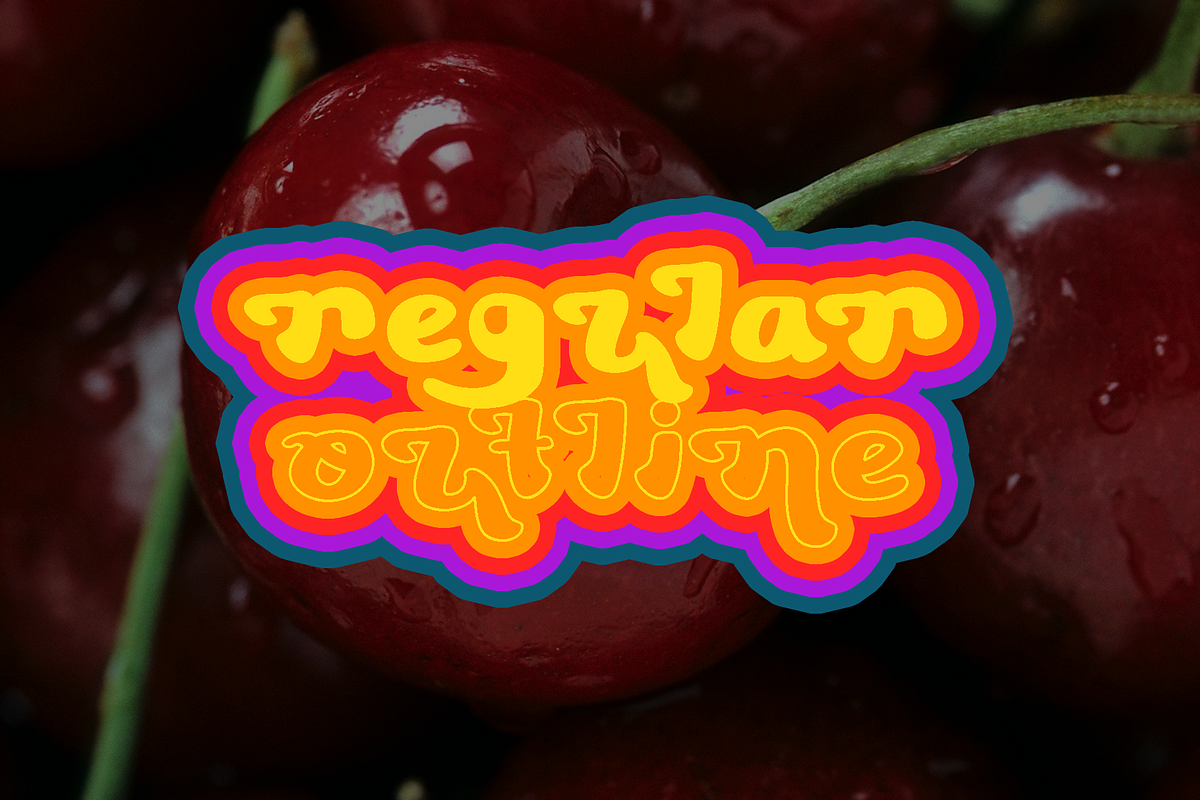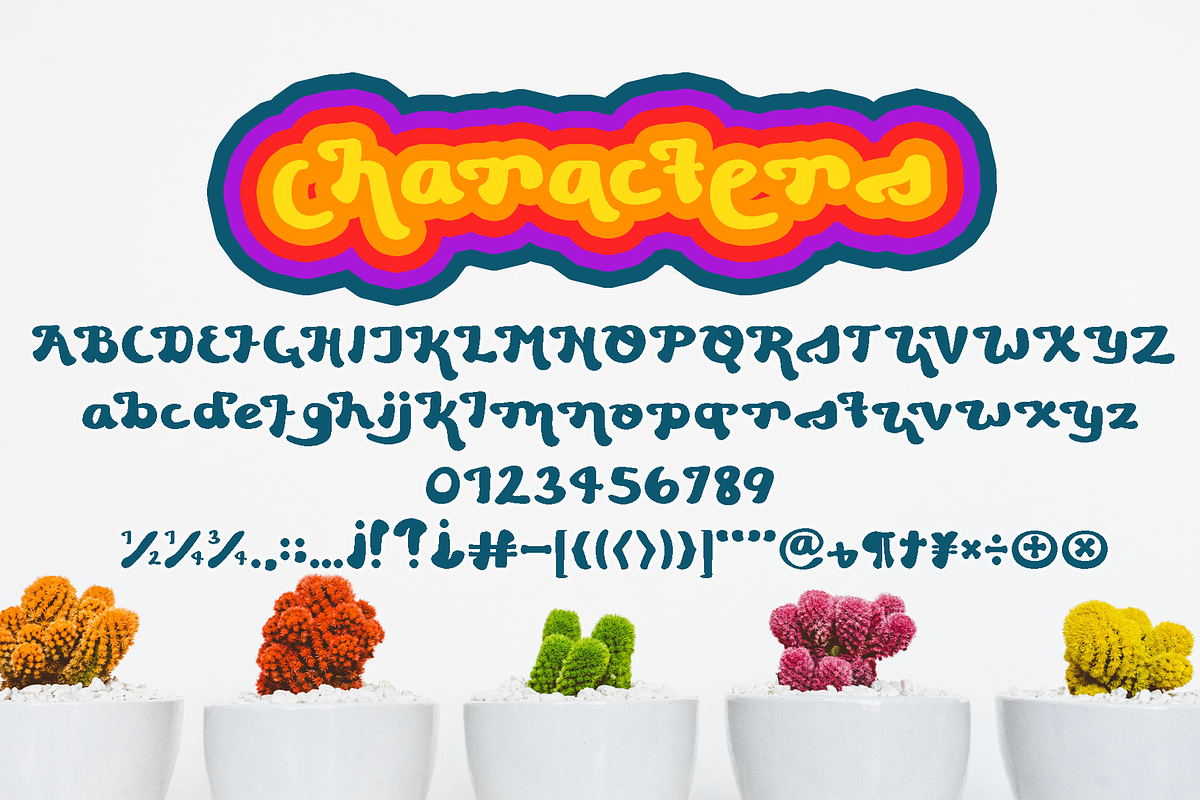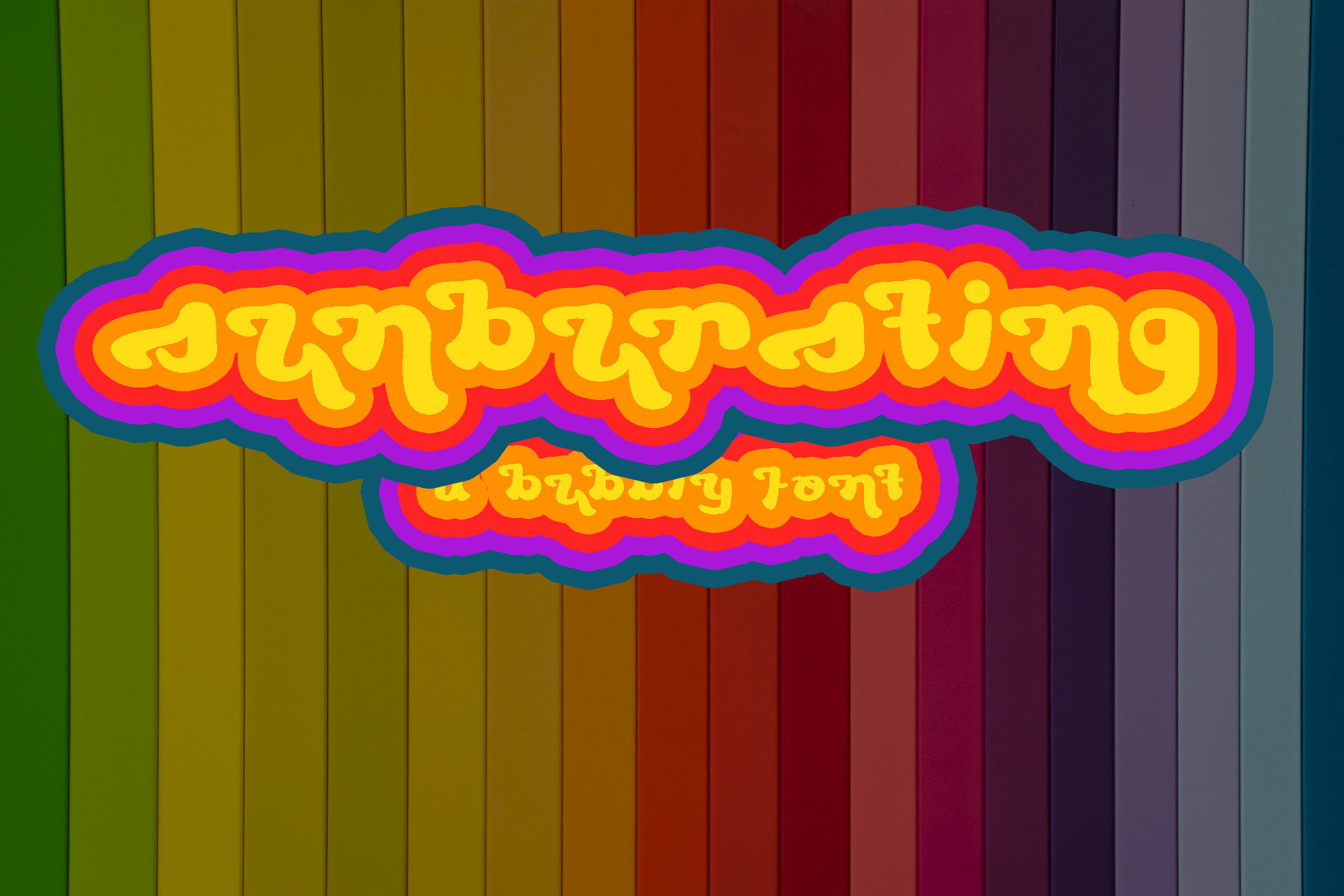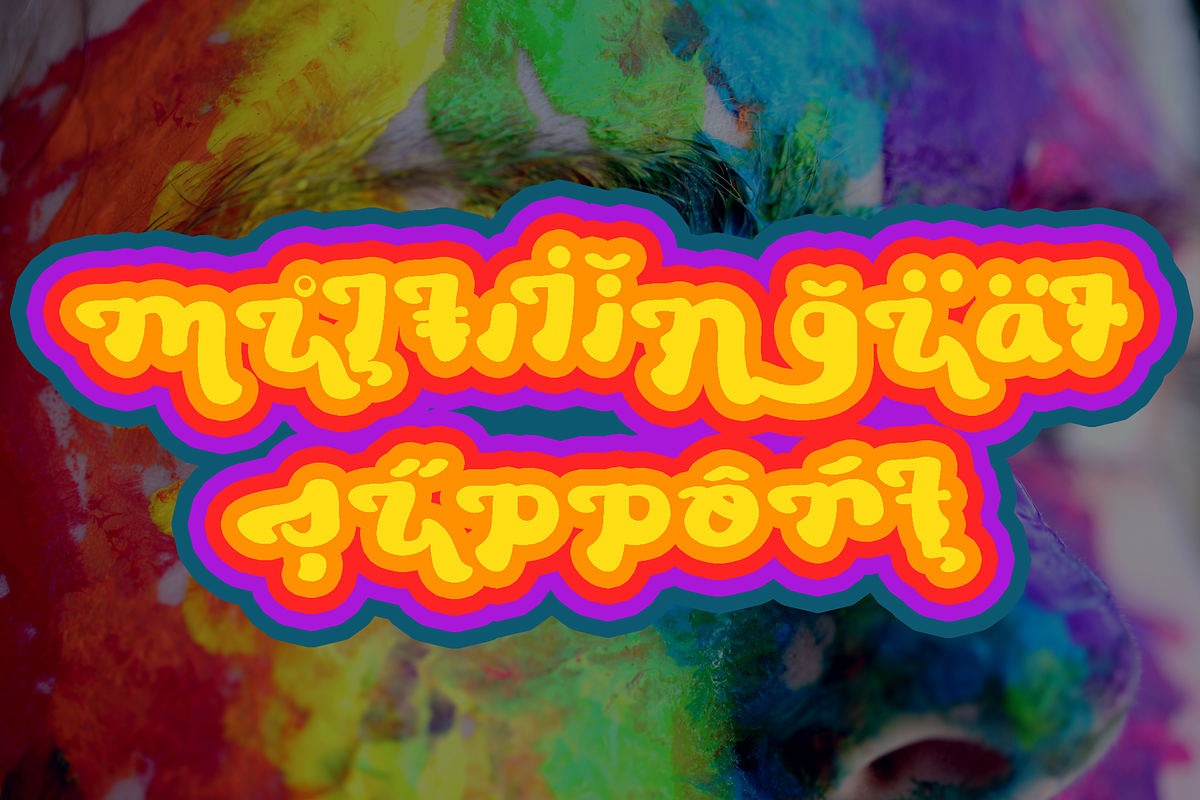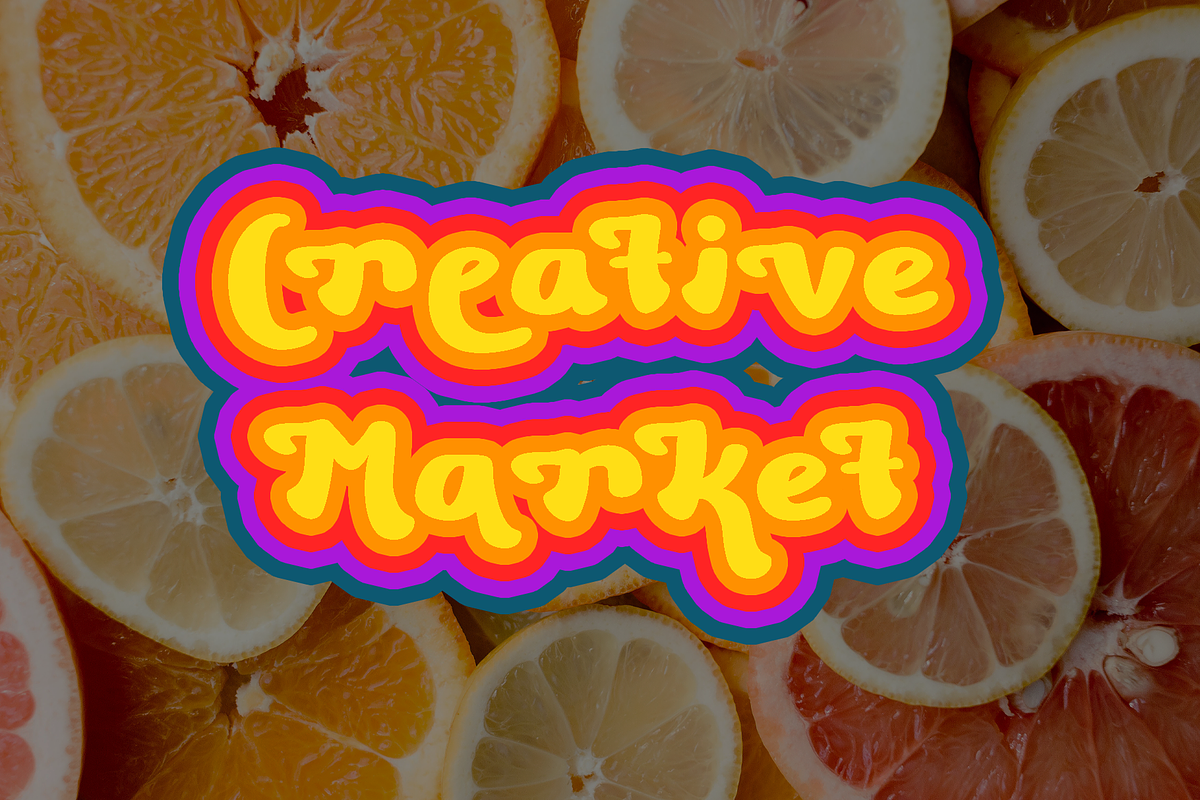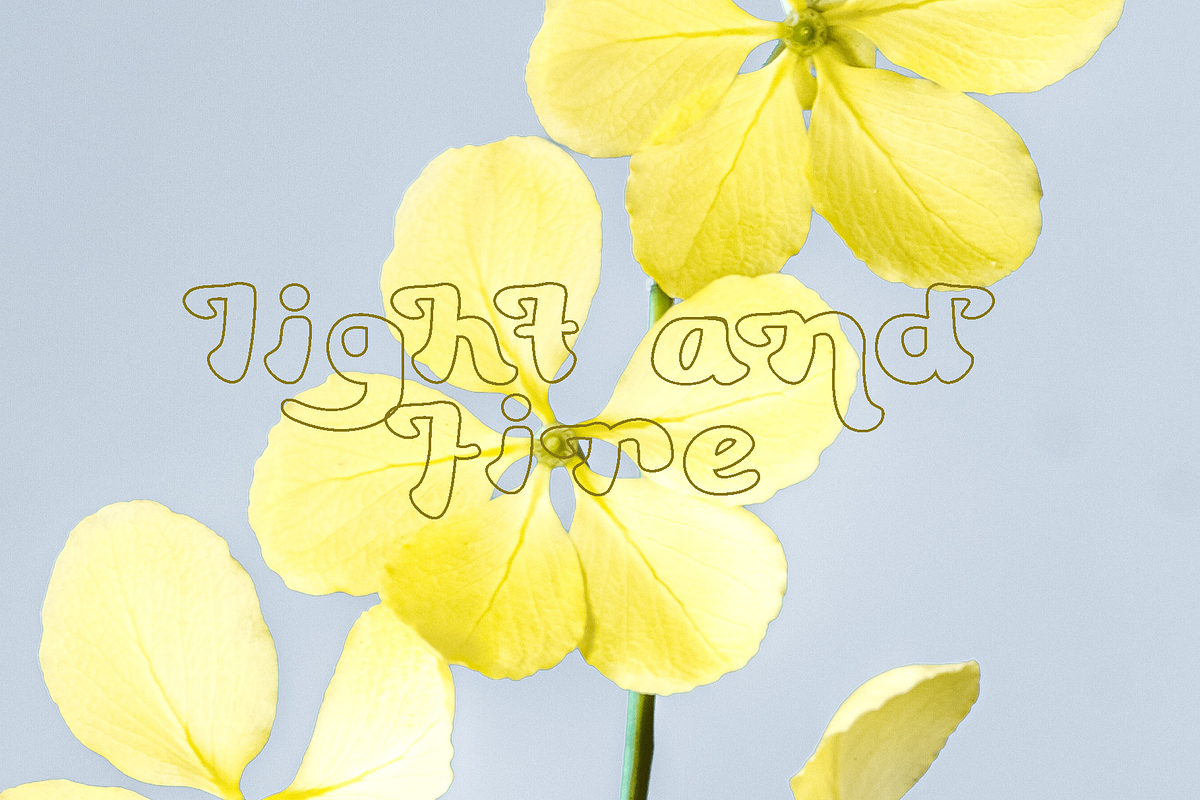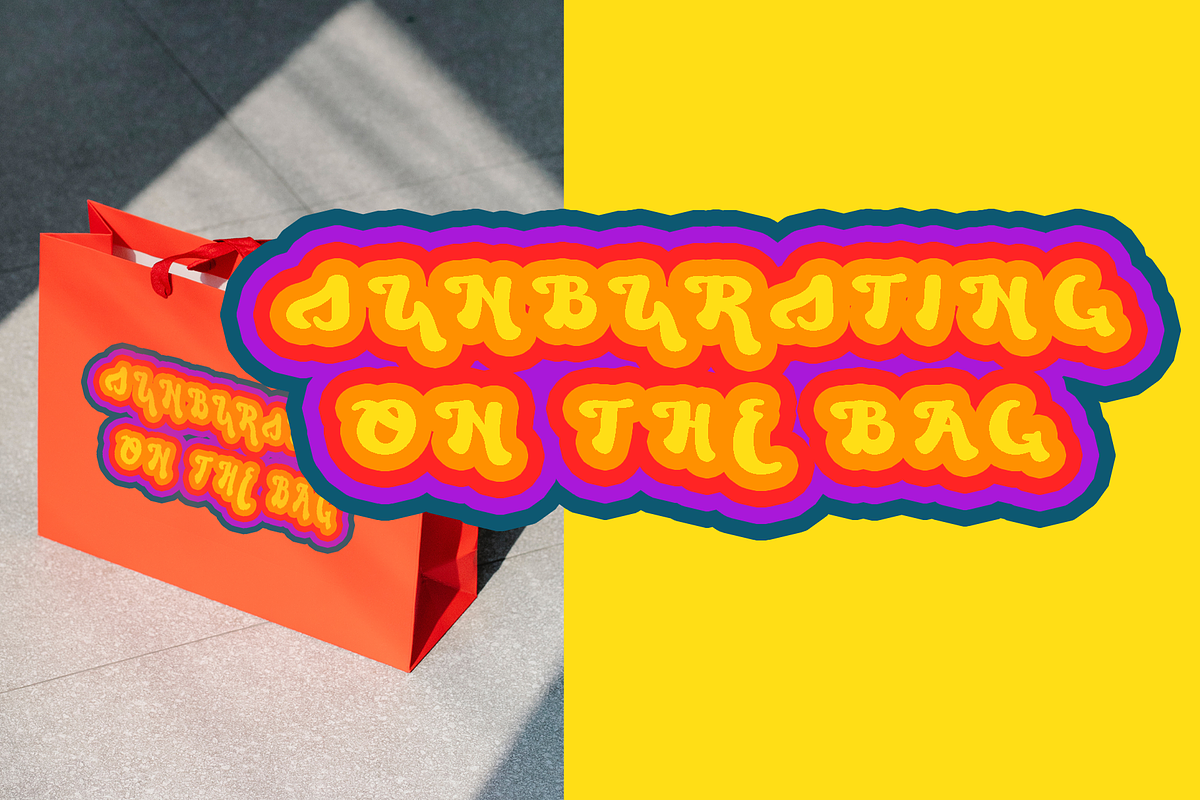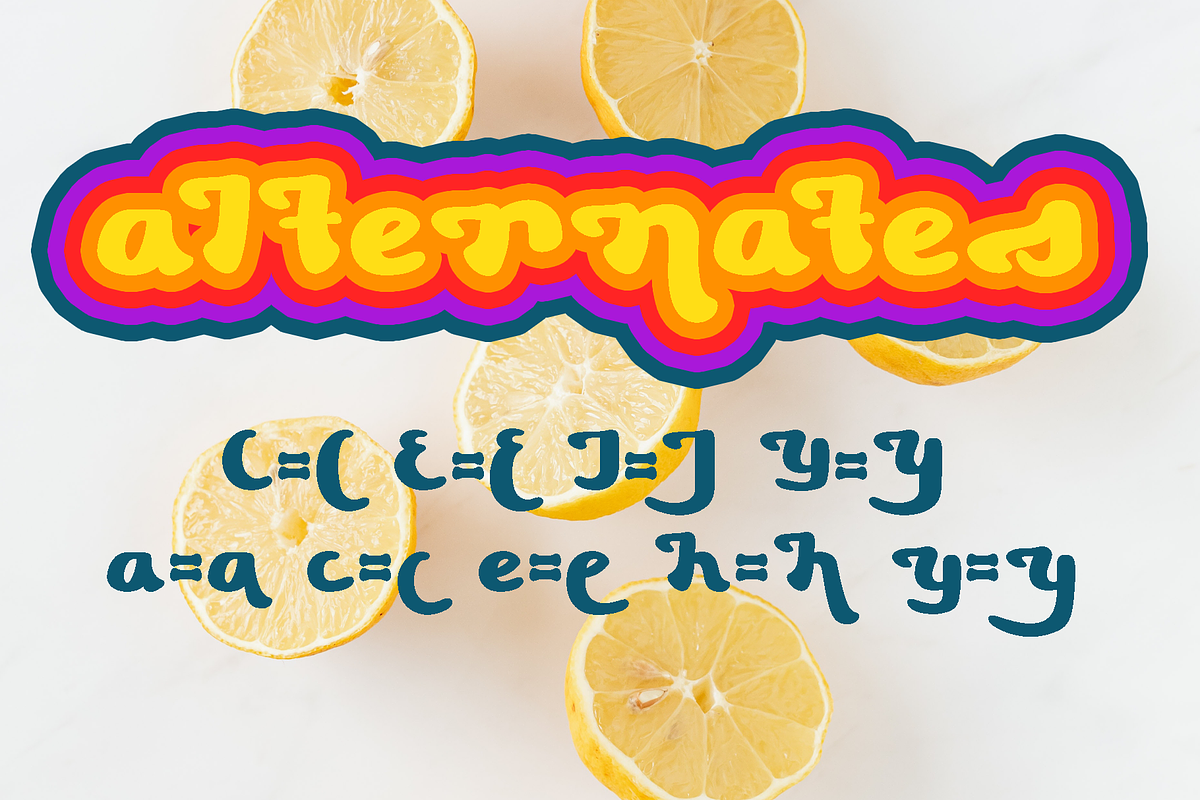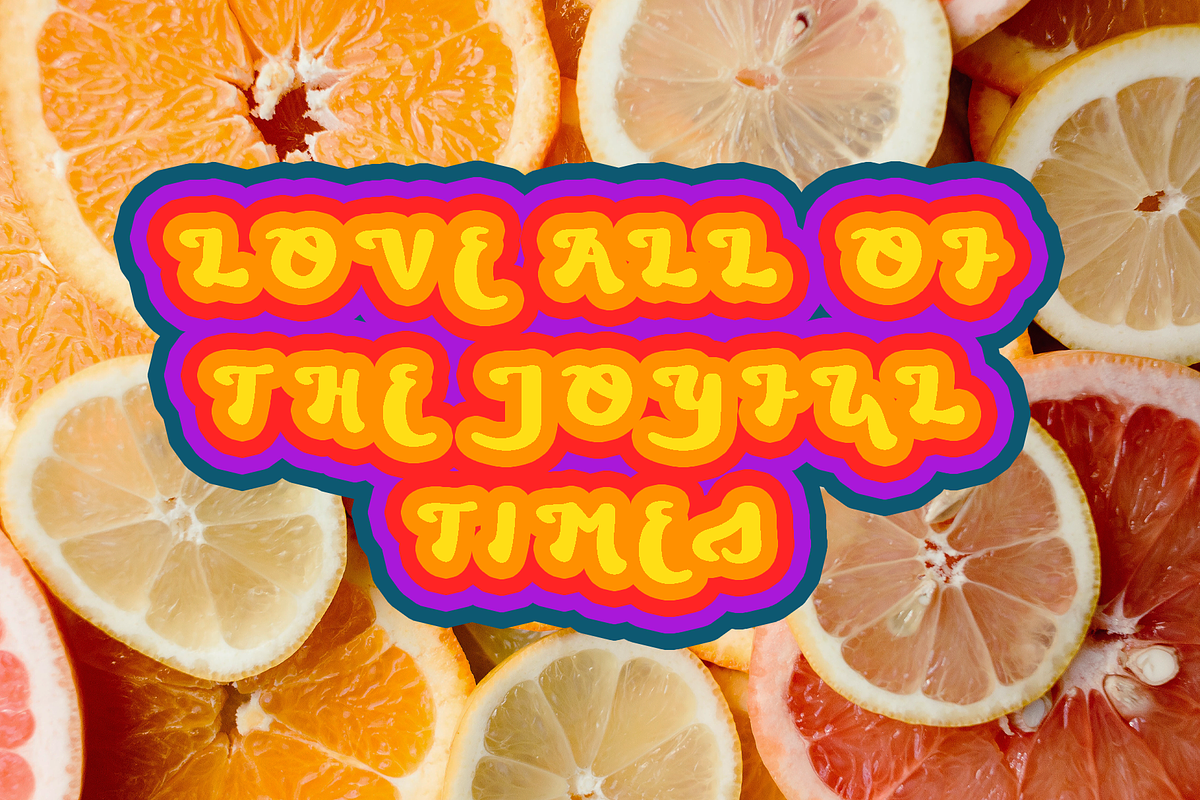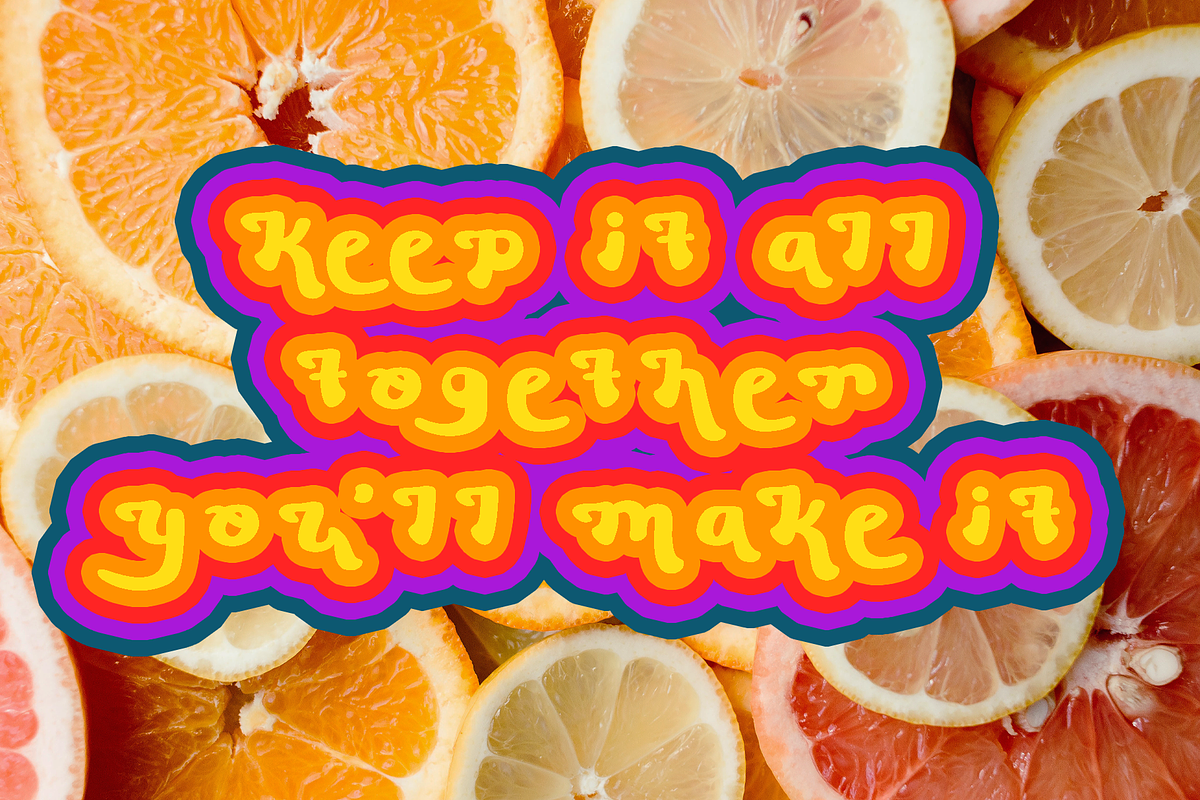
Sunbursting Typeface
The Sunbursting Typeface is the perfect personality font. Great for use on book, album and play covers, along with websites, logos, clothing, brand design, instagram/other social media, and other animation and cartoon related projects! It has both a modern and retro feel, accentuated by playful serifs. Certain letters also have alternates that loop around surrounding letters for an artistic, quirky feel.
Styles included
- Outline